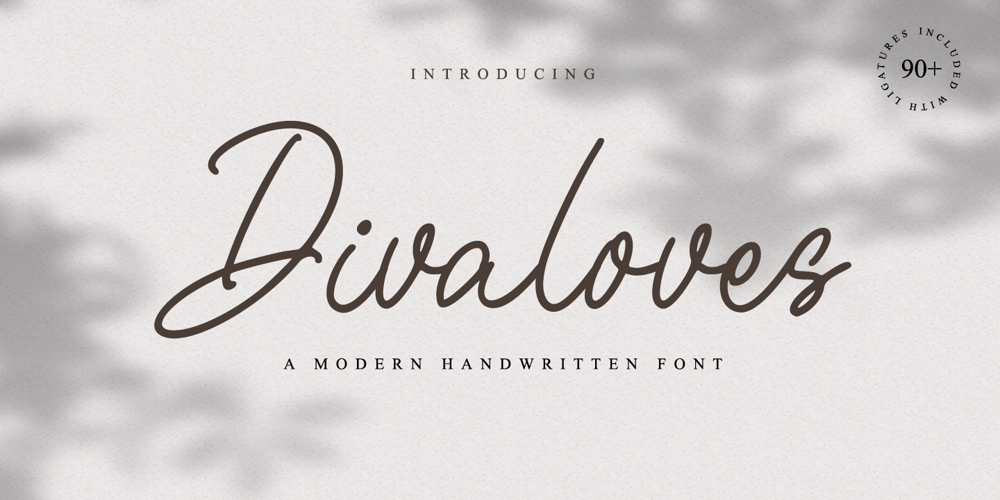
Divaloves Font Family was designed by Novia Himatunnisa and published by Nissa Nana. Divaloves contains 1 styles and family package options. Divaloves is a graceful and cursive handwritten font. It has beautiful and well balanced characters and as a result, it matches a wide pool of romantic designs.